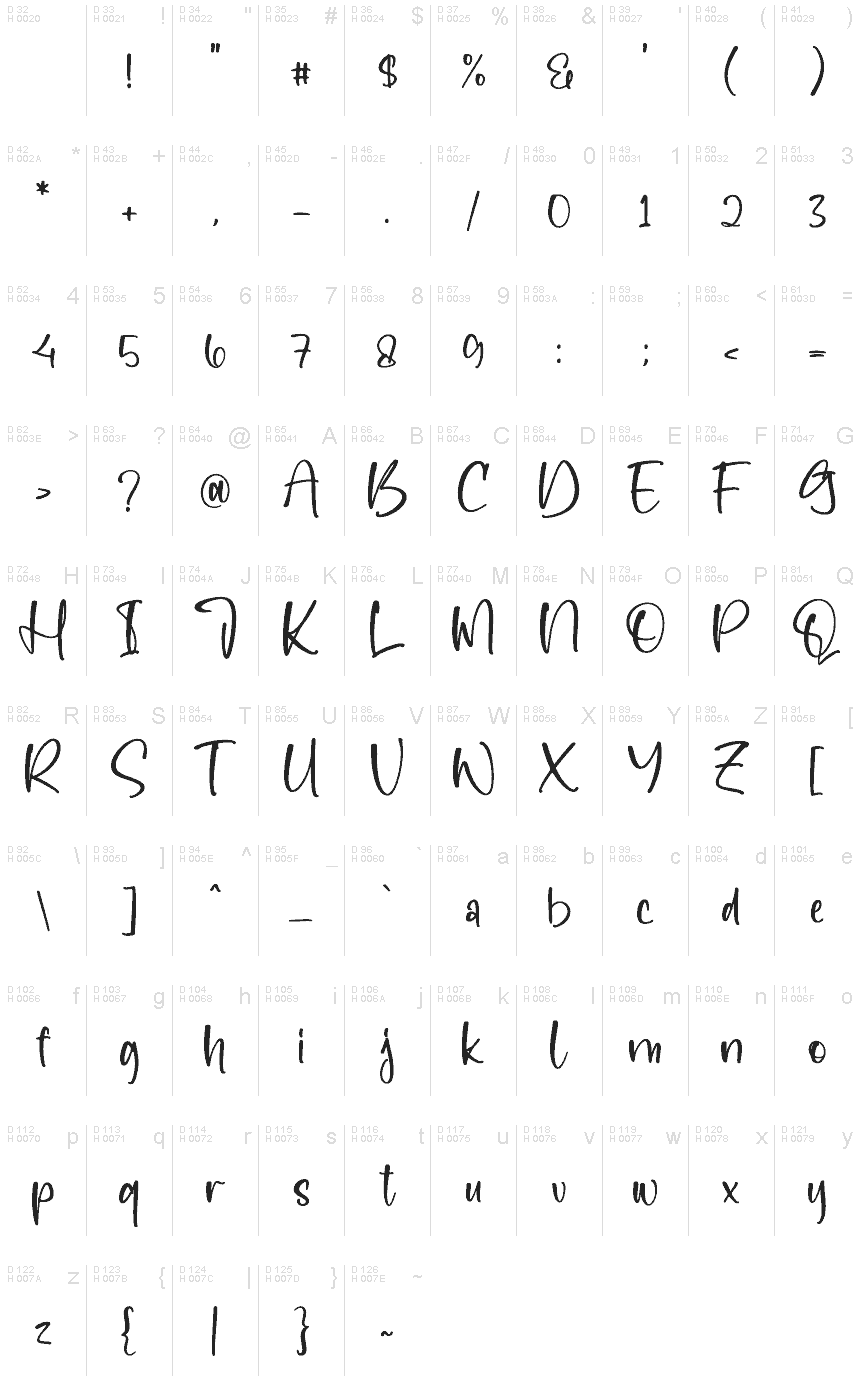
Kallimaya
Kallimaya font designed by Perspectype Studio - Letterena.com is an elegant handwritten font that flows naturally with its contemporary design. It features a modern style with curves that make the balanced letters expressive and creative. Its characters are not only original, but they are a masterpiece each in its own with long curvy strokes almost like calligraphic fonts.
Because of its beauty, Kallimaya can be used for multiple kinds of displays such as packaging projects, magazine covers and pages, invitations cards, newspapers, website banners/headers or paragraphs in web/digital pages. It’s also great for non-digital use on posters and even books or albums/covers as well as many other print designs.